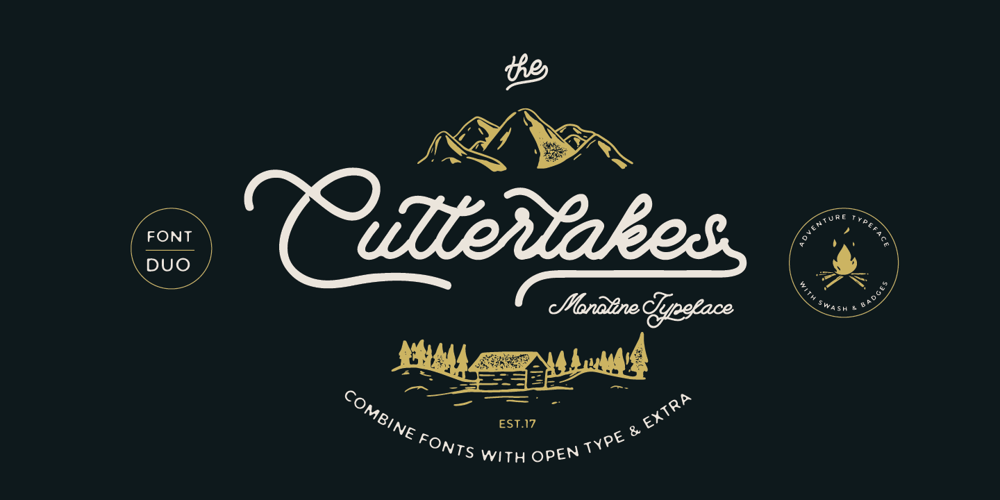
Cutterlakes Script Font Family was designed by Ramandhani Nugraha and published by Fortunes Co. Cutterlakes Script contains 3 styles and family package options. Proudly presents our latest product Cutterlakes & Camp Press fonts. these combine font with differente style between script & sans. insipired from nature, adventure and vintage typeface, its very great for logo, clothing brand, vintage looks, wedding, and more.